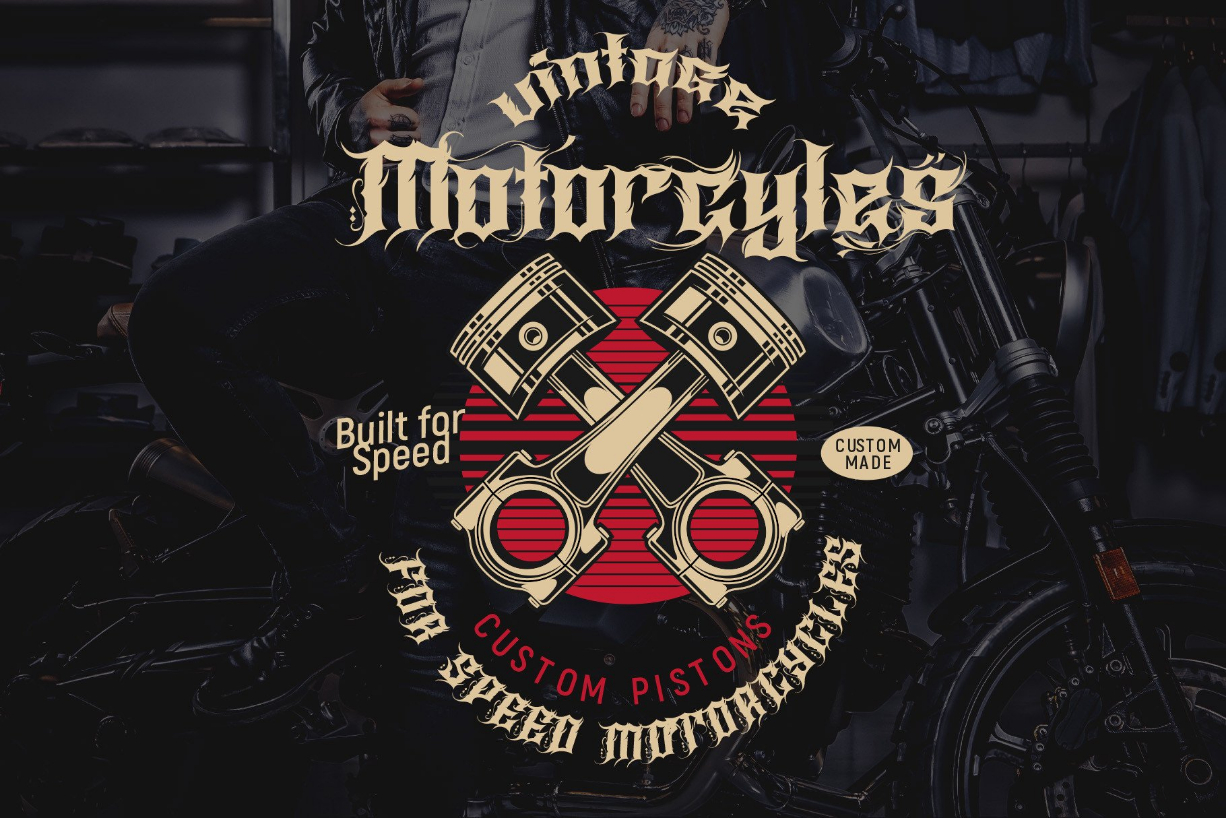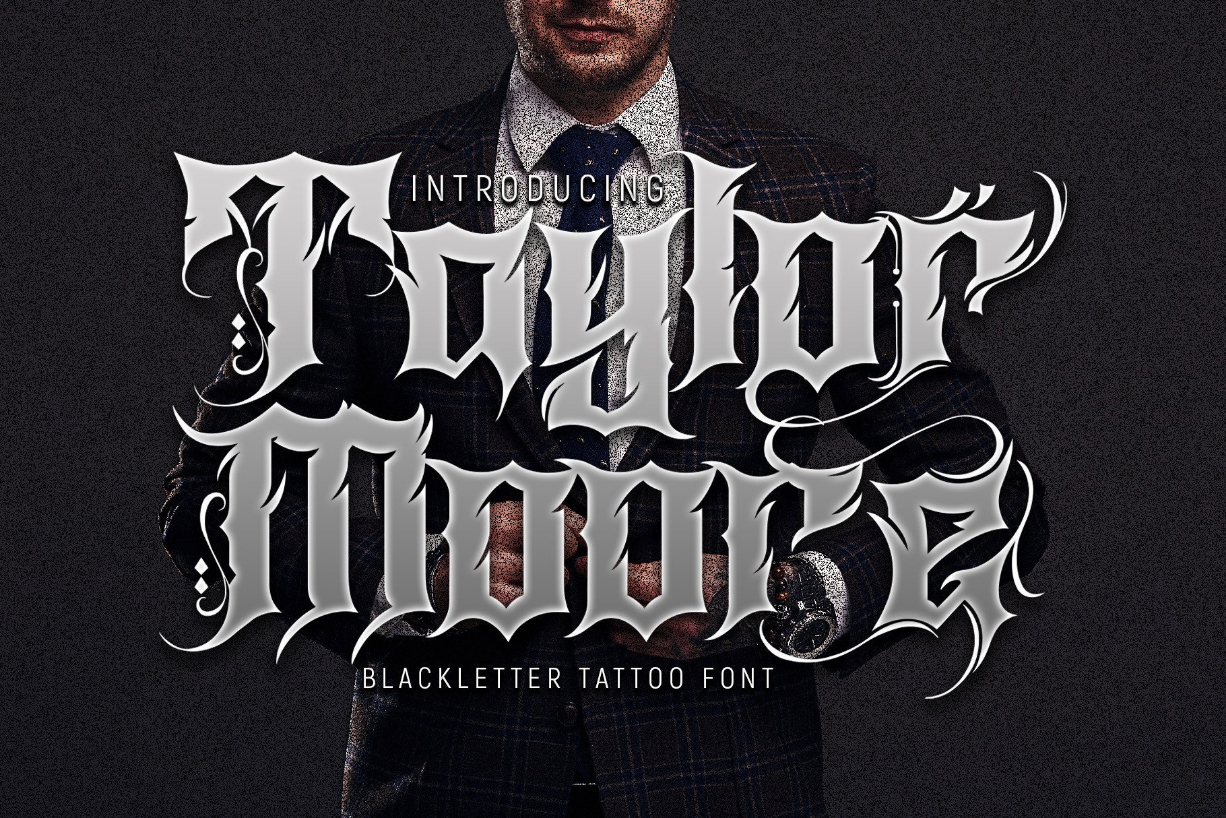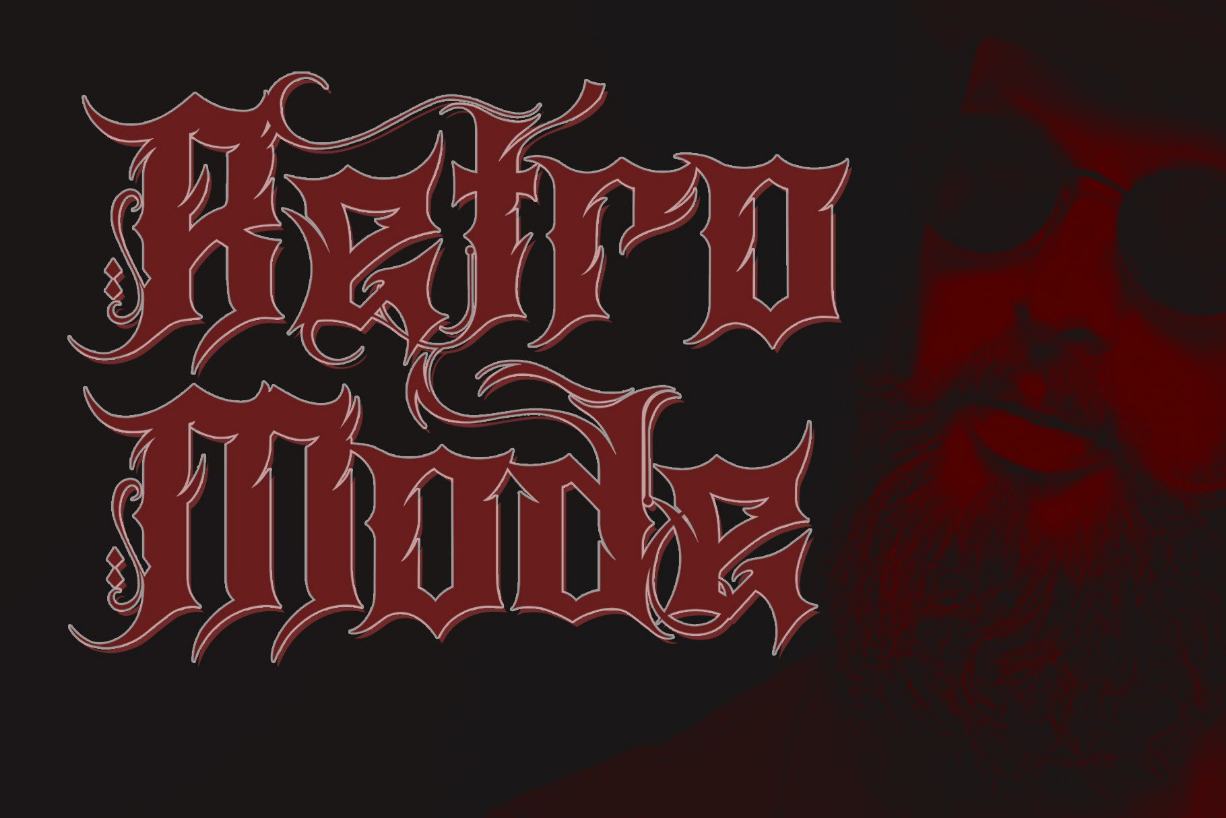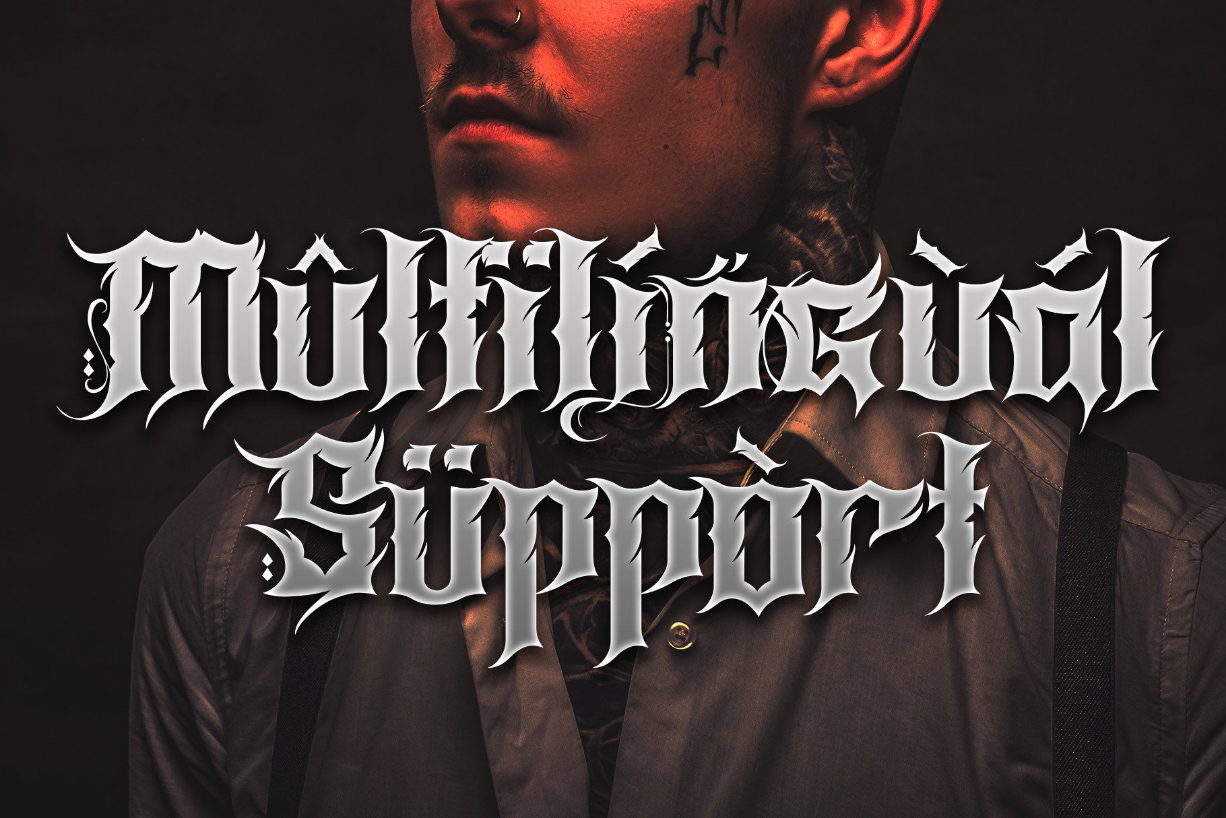
About Taylor Moore Font
Taylor Moore is a contemporary blackletter tattoo font that feels right at home on logos, t-shirt designs, posters, flyers, and other brand identity items. Add it confidently to your projects, and you will love the results.